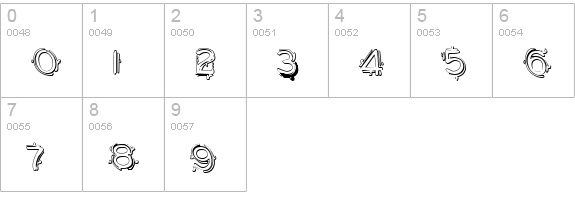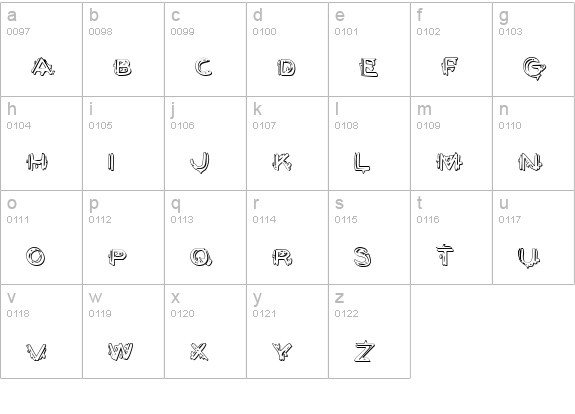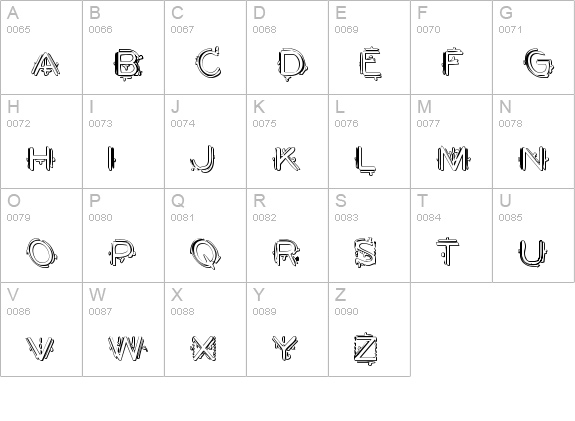
Berserker Shadow font is a bold and powerful typeface that exudes strength and intensity. Designed with sharp edges and a striking shadow effect, this font is perfect for making a statement in your designs. Whether you're creating posters, logos, or headlines, Berserker Shadow font will demand attention and leave a lasting impression. What's even better is that Berserker Shadow font is available for free download at FontsMarket.com. You can easily add this unique and eye-catching font to your collection without breaking the bank. Don't miss out on the opportunity to enhance your designs with the dynamic energy of Berserker Shadow font. Download it now and let your creativity run wild!